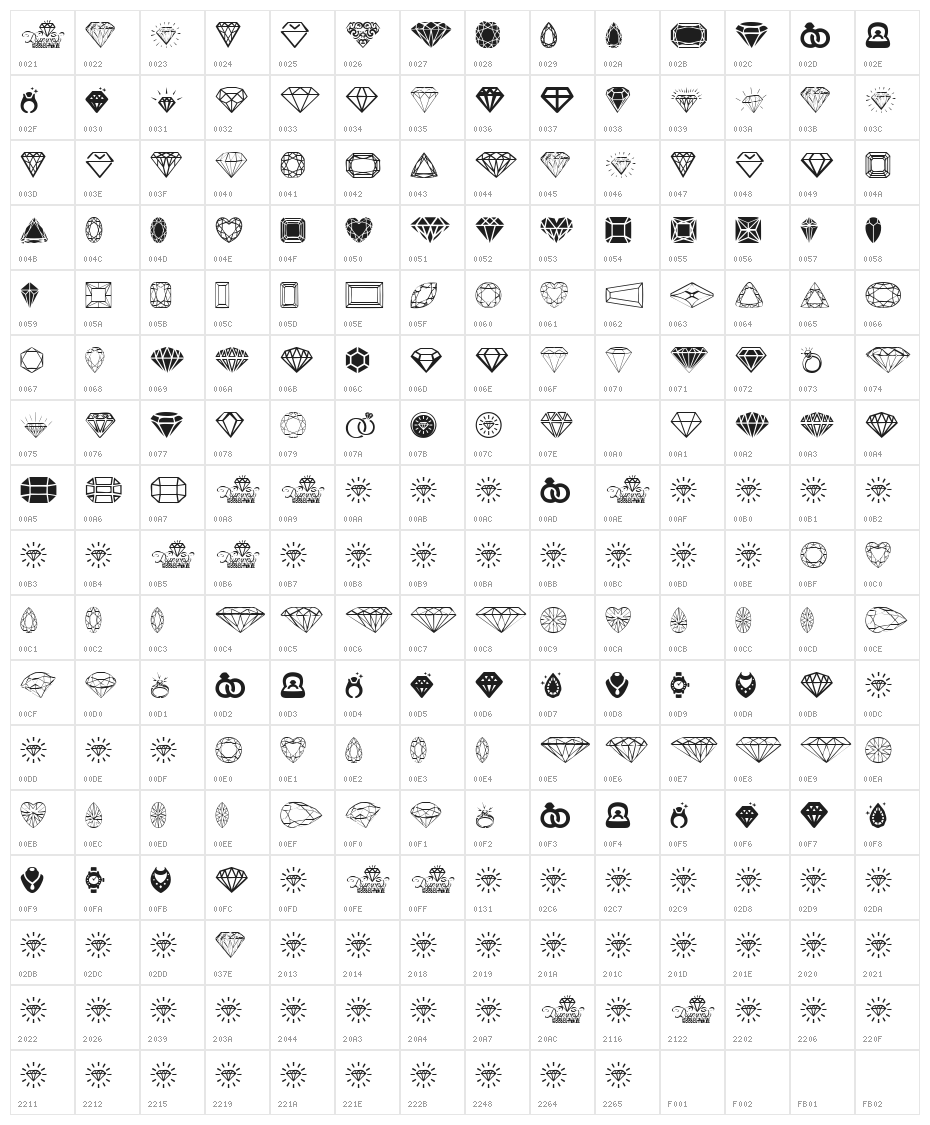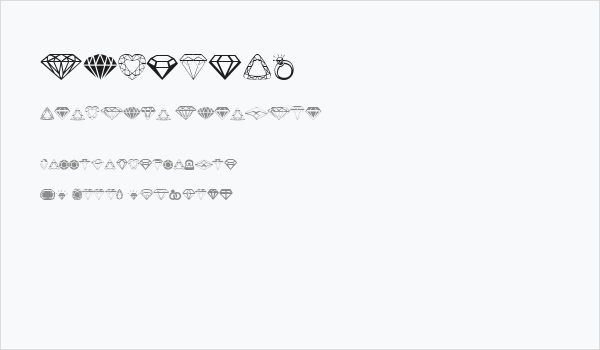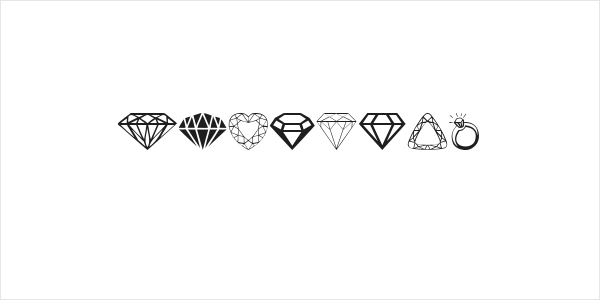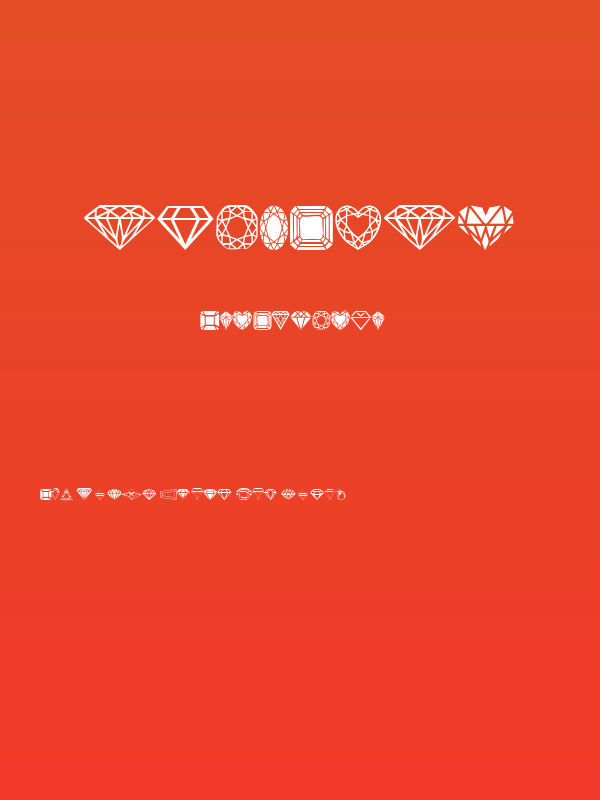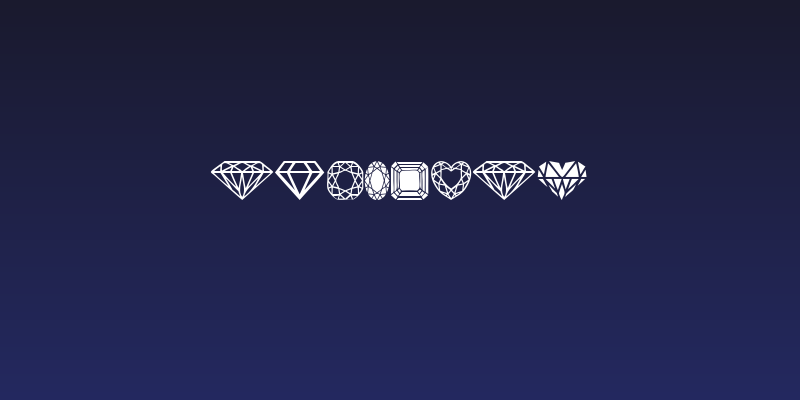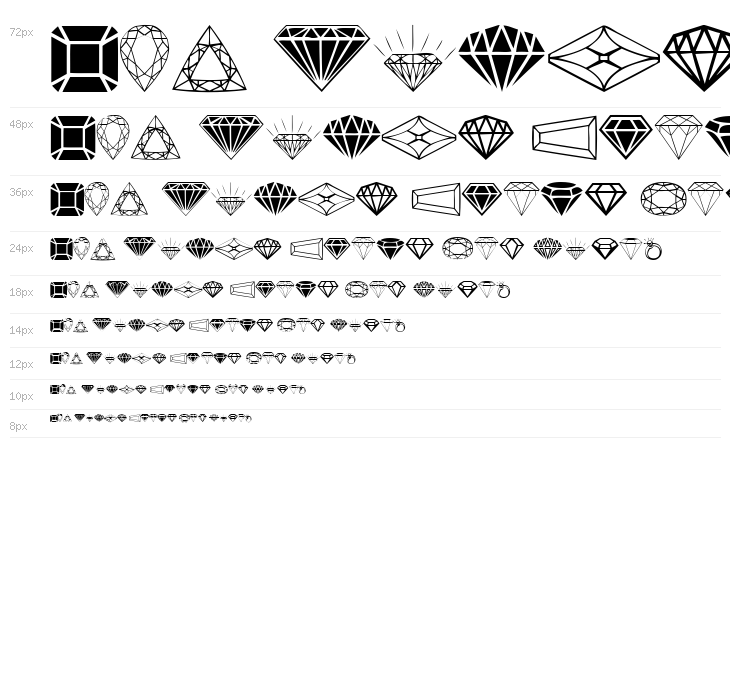
Diamonds Font
Diamonds Description
A decorative collection of diamond and gemstone illustrations in various shapes and line styles, including hearts, rings, and geometric forms, rendered in black and white with both filled and outlined designs.
| Overall Style | Decorative, Modern, Elegant |
| Use Case | Logos, Decorative elements, Branding, Invitations |
| Proposed Projects | Jewelry branding, wedding invitations, luxury packaging, decorative borders, logo design, digital scrapbooking. |